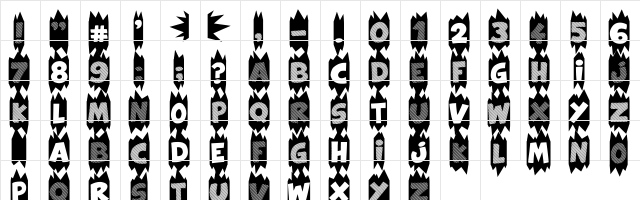
Extra Sales Regular
Design Context for Extra Sales Typeface
Extra Sales is a composed and adaptable typeface that performs quietly and consistently across a wide range of design contexts.